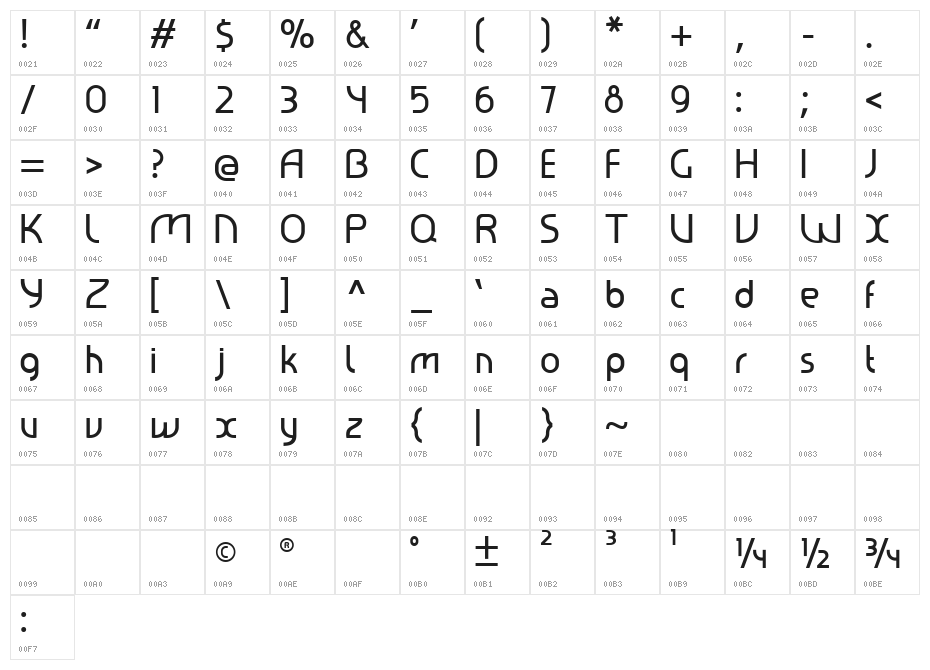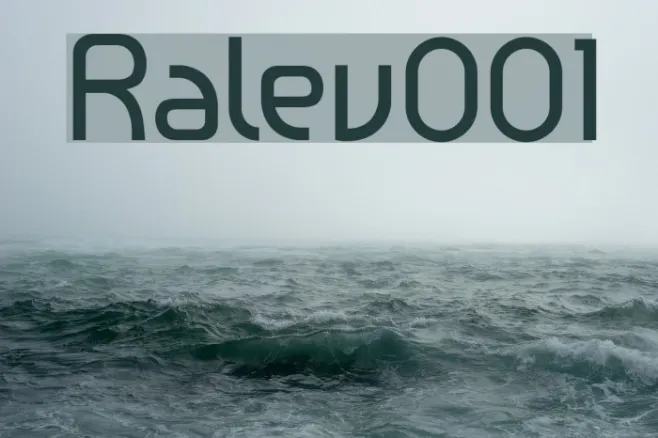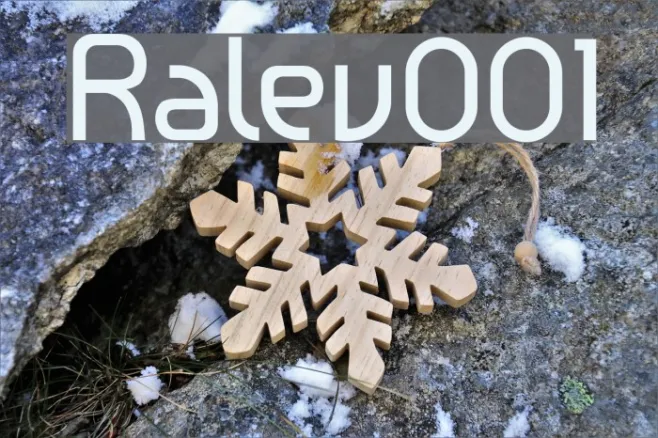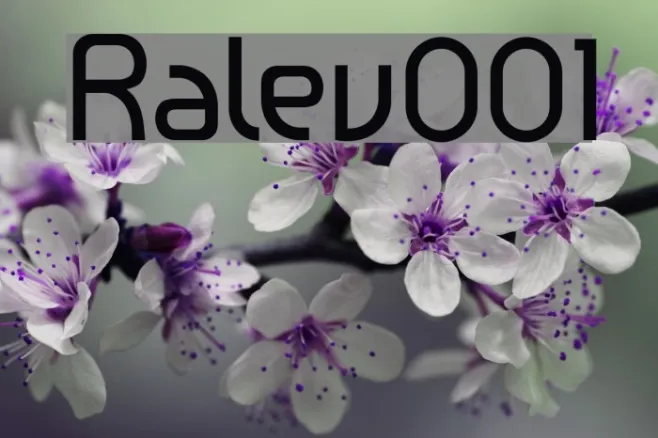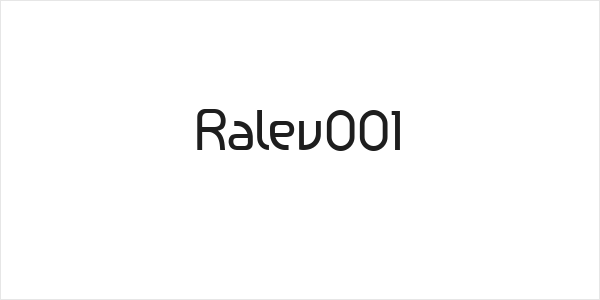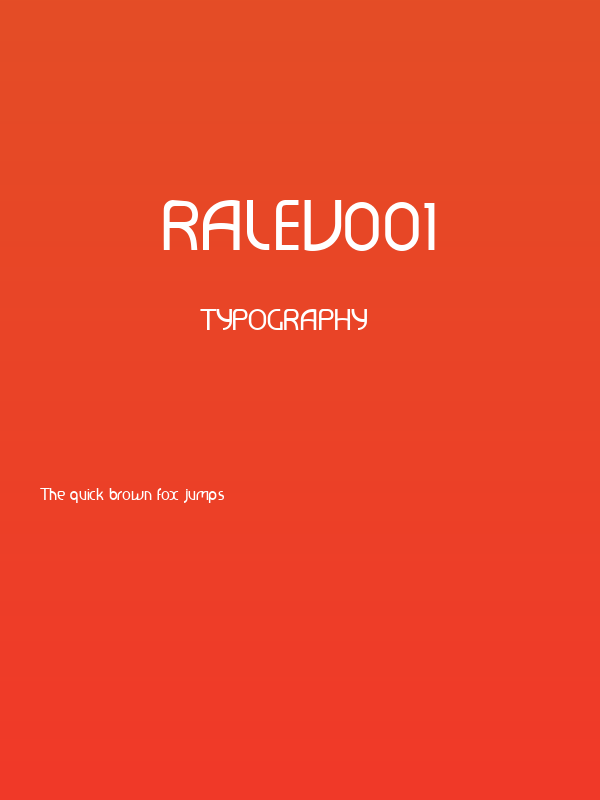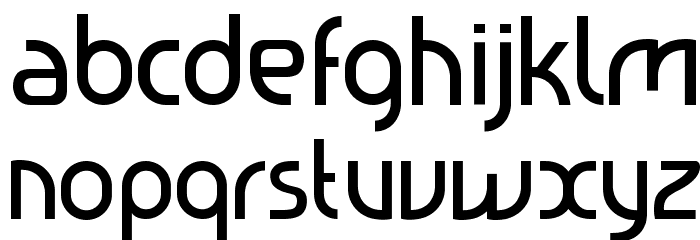
Ralev001 Font
Ralev001 Description
This font features a modern and sleek design with smooth curves and a clean aesthetic. The uppercase letters are uniform in height, with rounded edges that give a futuristic feel. The lowercase letters maintain the same rounded style, ensuring consistency throughout. Numbers are clear and easy to read, with a slight geometric influence. Special characters are well-integrated, maintaining the overall style. The font's design is both functional and stylish, making it suitable for a variety of applications.